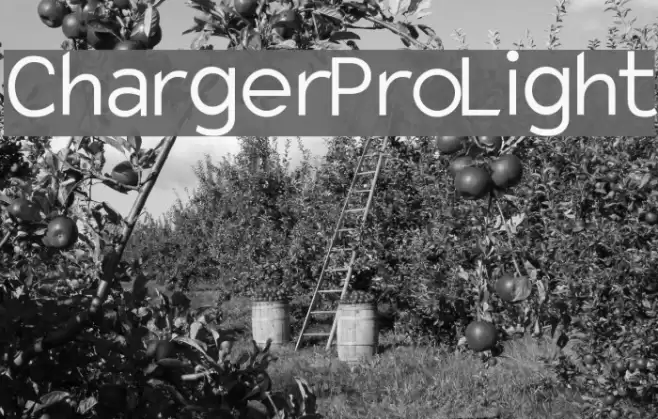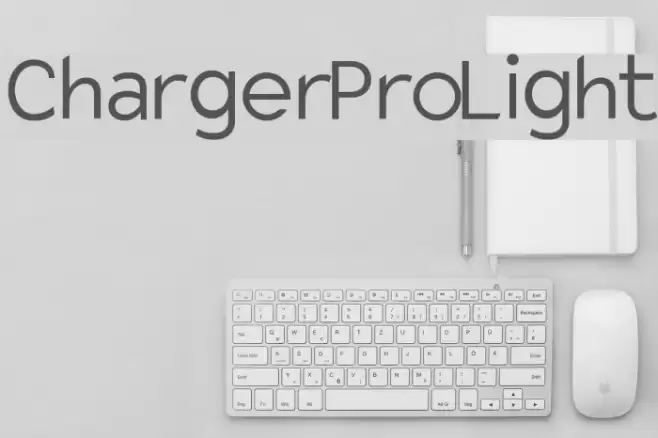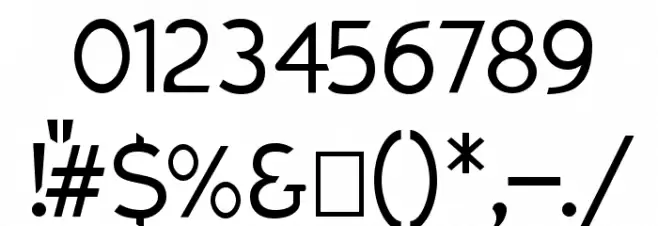
Charger Pro Light Font
Charger Pro Light Description
This font features a clean and modern sans-serif design with a uniform stroke width, giving it a sleek and contemporary appearance. The characters are well-proportioned, with a balanced x-height that enhances readability. The uppercase letters are bold and assertive, while the lowercase letters maintain a friendly and approachable feel. The numerals are clear and distinct, making them suitable for various applications. Special characters are designed with the same attention to detail, ensuring consistency throughout the font. Its simplicity and clarity make it versatile for both digital and print media.
A modern, clean sans-serif font with uniform strokes and excellent readability from Uncategorized fonts.